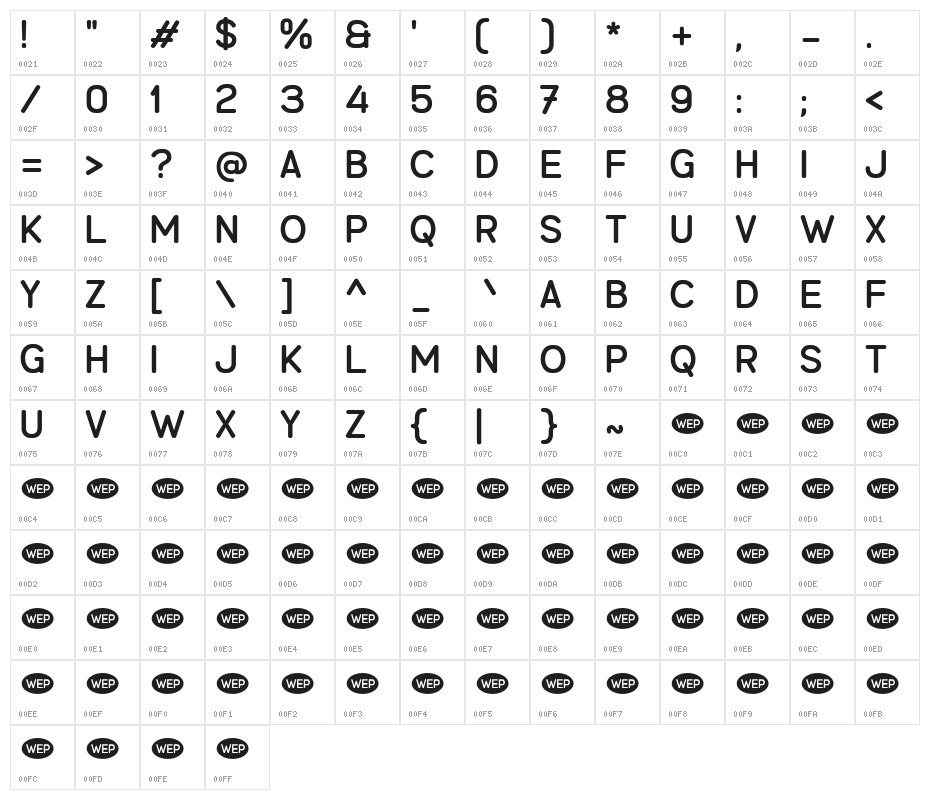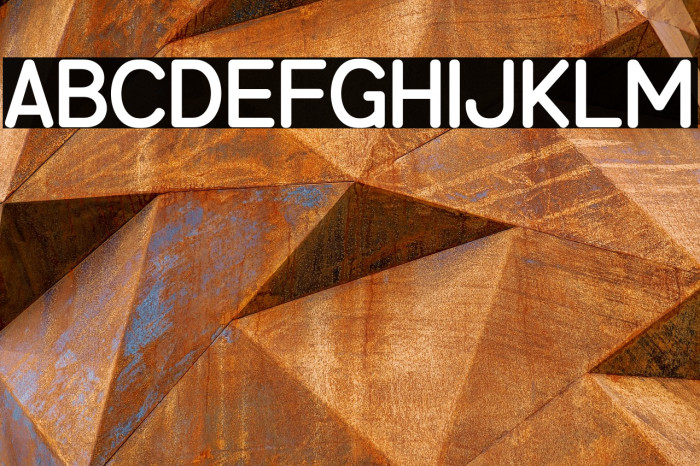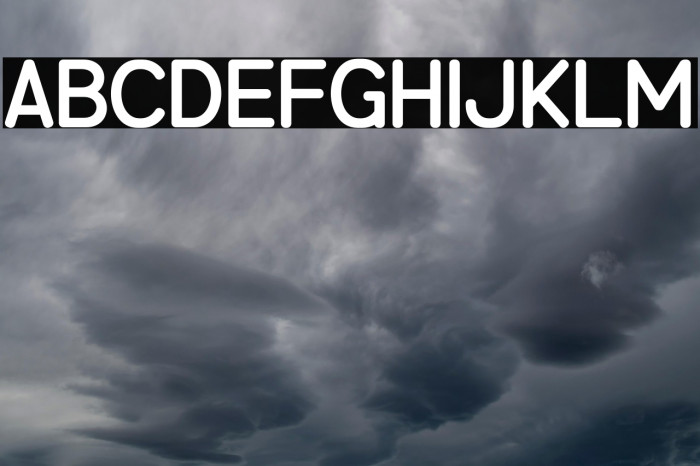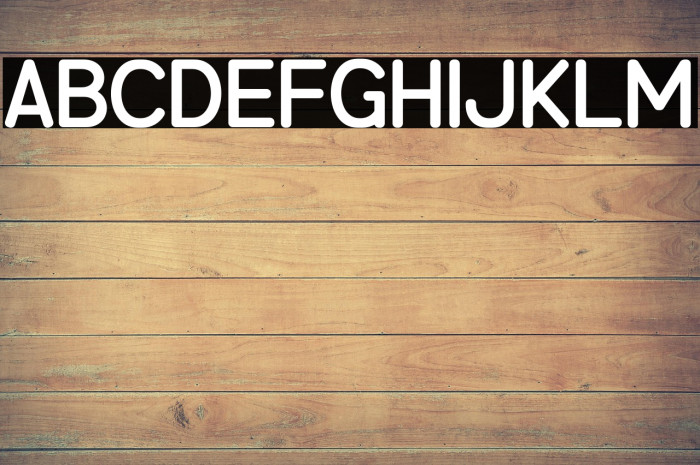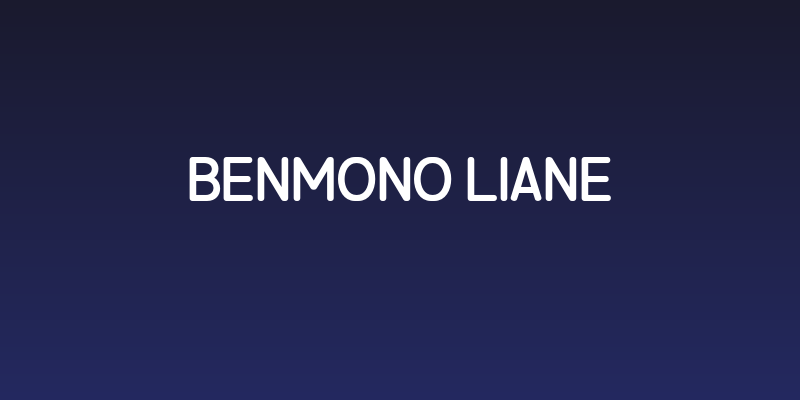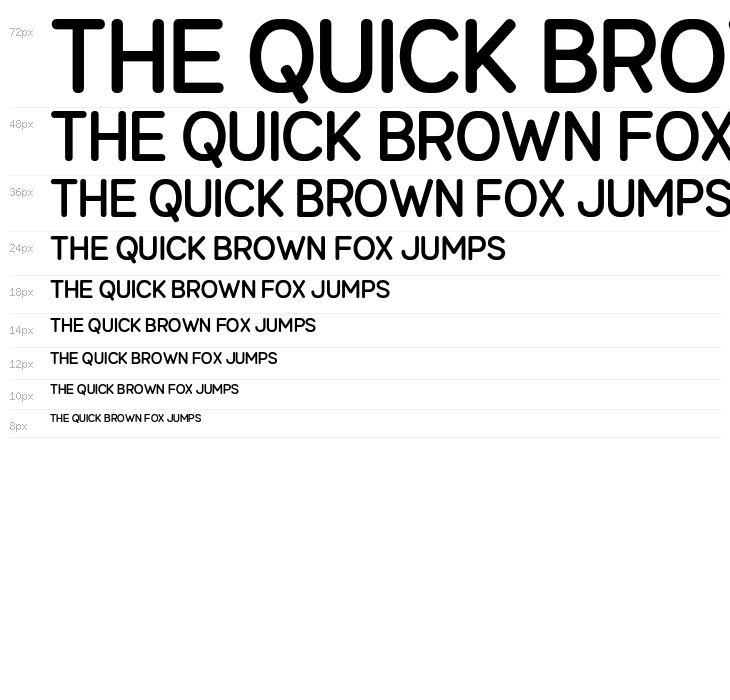
Benmono Liane Font
Benmono Liane Description
This font features a clean and modern design with rounded edges and uniform stroke widths, giving it a friendly and approachable appearance. The characters are evenly spaced, contributing to its readability and versatility. The uppercase and lowercase letters maintain a consistent style, while the numerals and special characters blend seamlessly with the overall design. Its simplicity and clarity make it suitable for a wide range of applications, from digital interfaces to print media.
| Proposed Projects | Ideal for user interfaces, websites, digital applications, educational materials, and branding projects. |